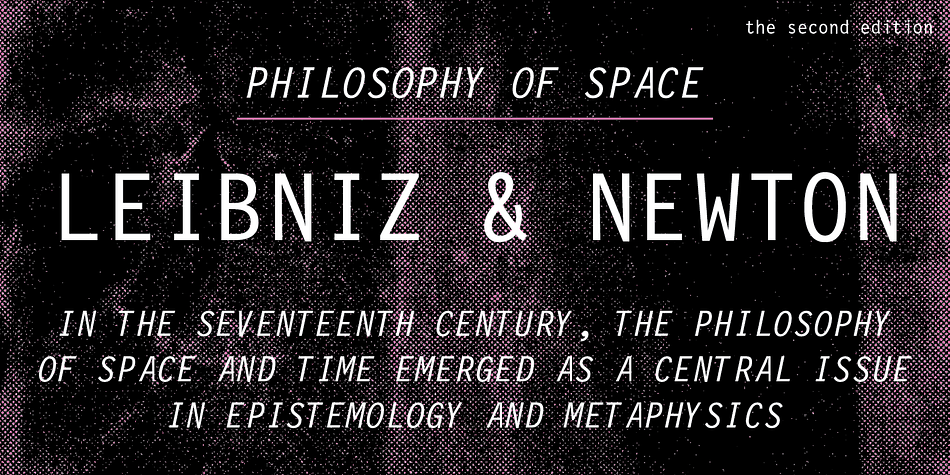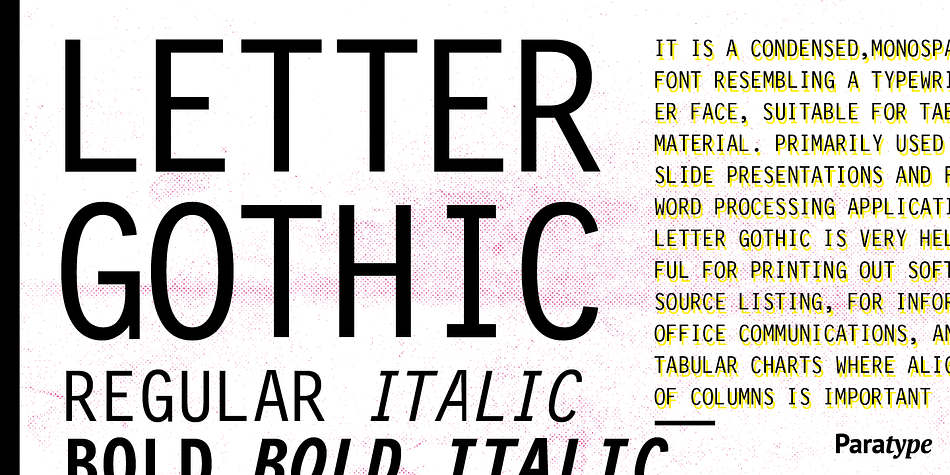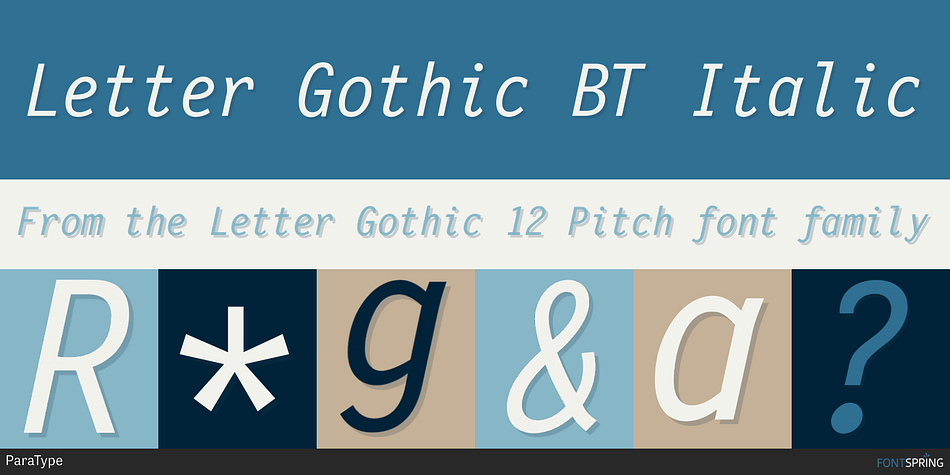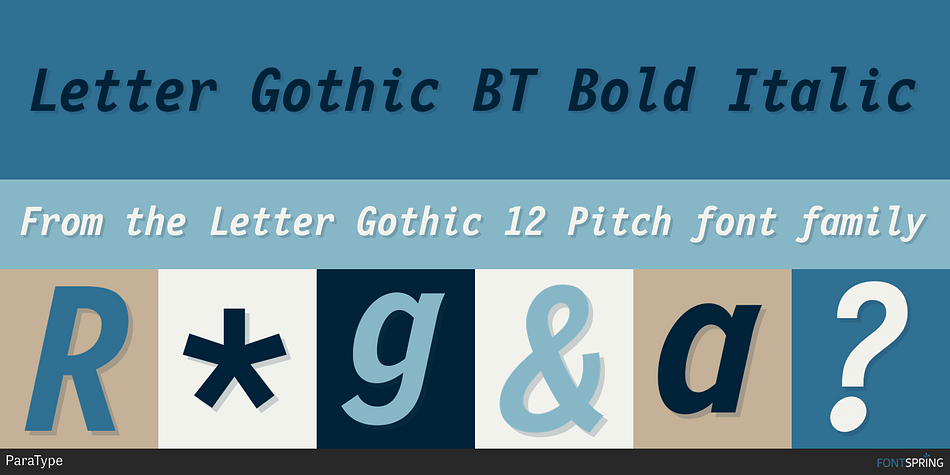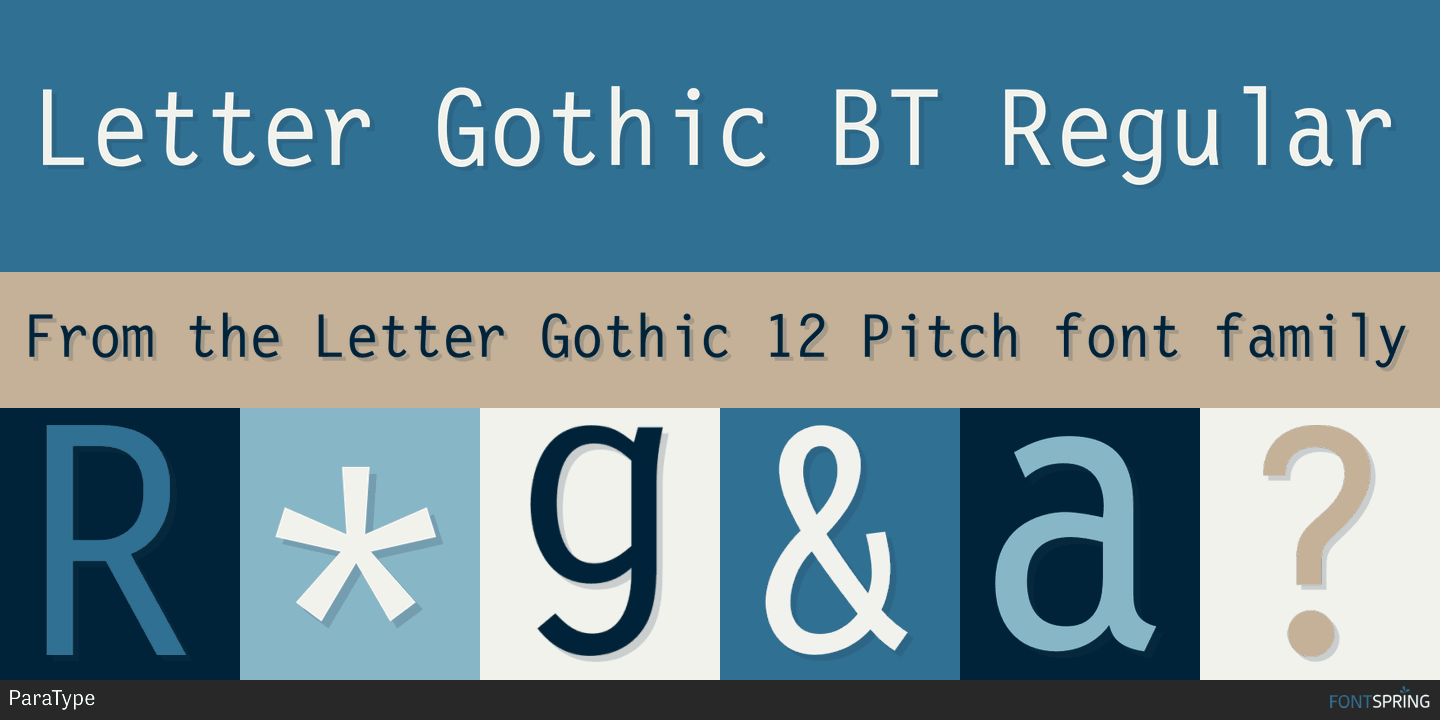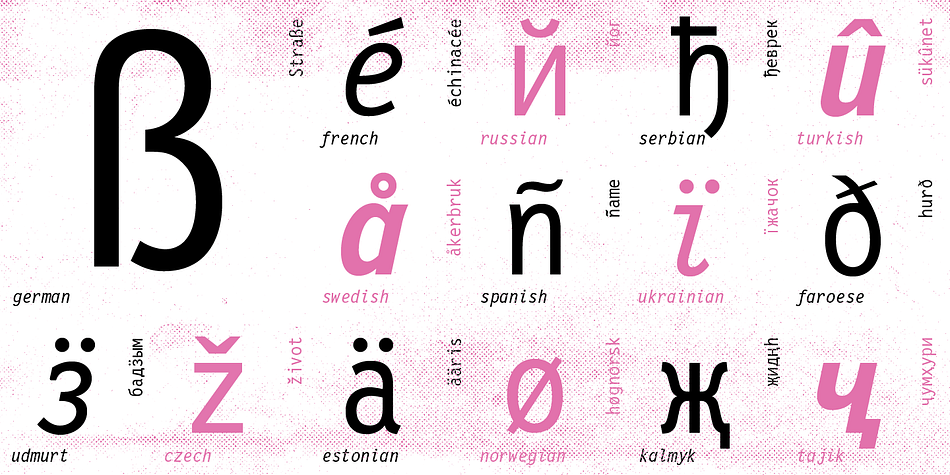
Designed by Gayaneh Bagdasaryan and Roger Roberson, Letter Gothic 12 Pitch is a sans serif and typewriter font family. This typeface has four styles and was published by ParaType.
The Bitstream version of Letter Gothic designed by Roger Robertson for IBM in 1956-62, for use on IBM electric typewriter. It is a condensed, monospaced font resembling a typewriter face, suitable for tabular material. Primarily used for slide presentations and for word processing applications, Letter Gothic is very helpful for printing out software source listing, for informal office communications and for tabular charts where alignment of columns is important. Besides, being a clear and easy-to-read font, Letter Gothic is popular now for display and advertising matters. Cyrillic version was developed for ParaType in 2000 by Gayaneh Bagdasaryan.